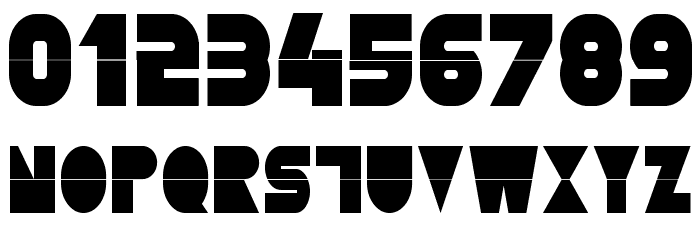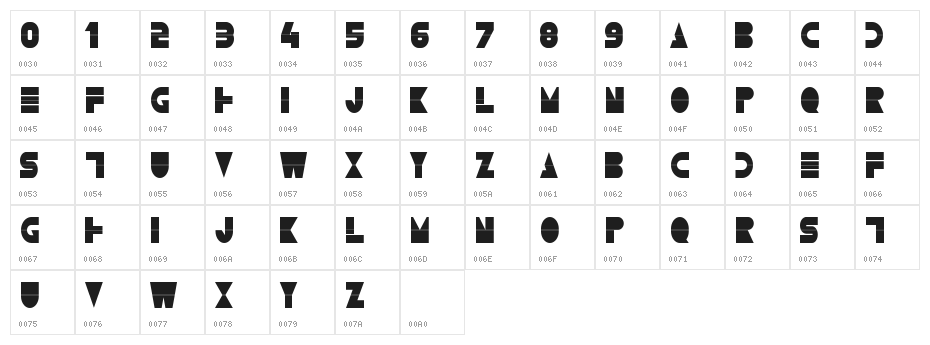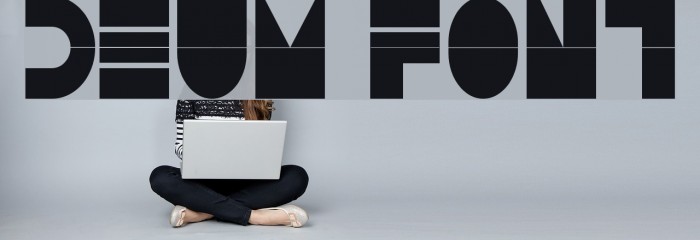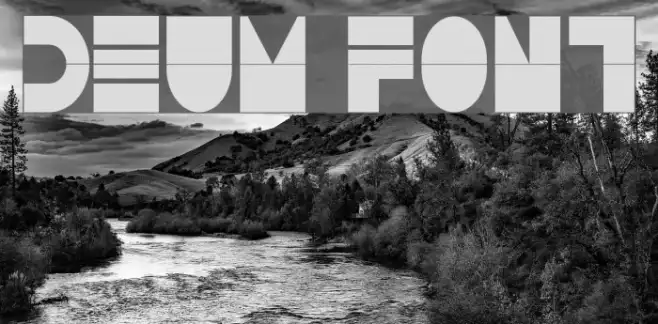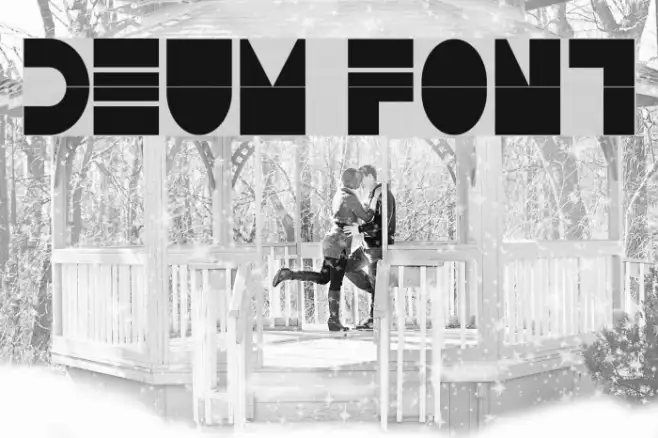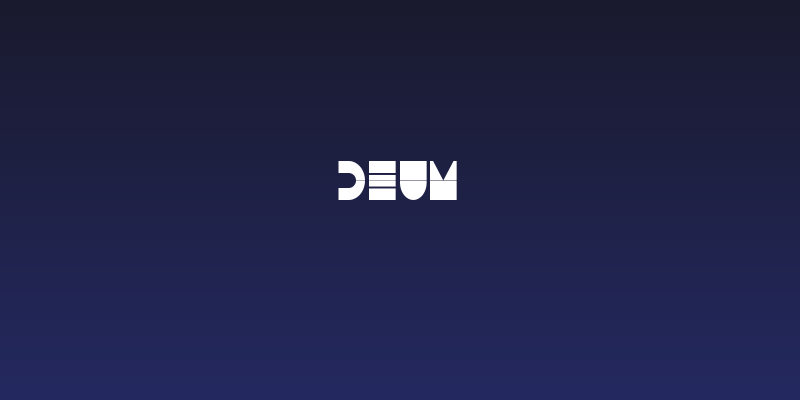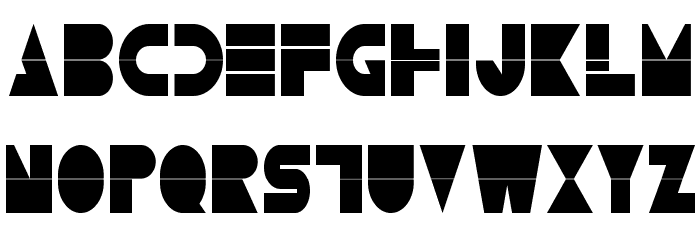
deum Font
deum Description
This font features a bold and geometric design with a strong emphasis on angular shapes and solid fills. Each character is constructed using a combination of straight lines and sharp angles, creating a futuristic and industrial appearance. The uppercase letters are particularly striking, with a uniform height and width that contribute to a cohesive look. The numbers and special characters maintain this geometric style, ensuring consistency across all elements. The font's unique style makes it ideal for projects that require a modern and edgy aesthetic.
| Proposed Projects | Ideal for branding, posters, album covers, and any project seeking a modern, industrial look. |